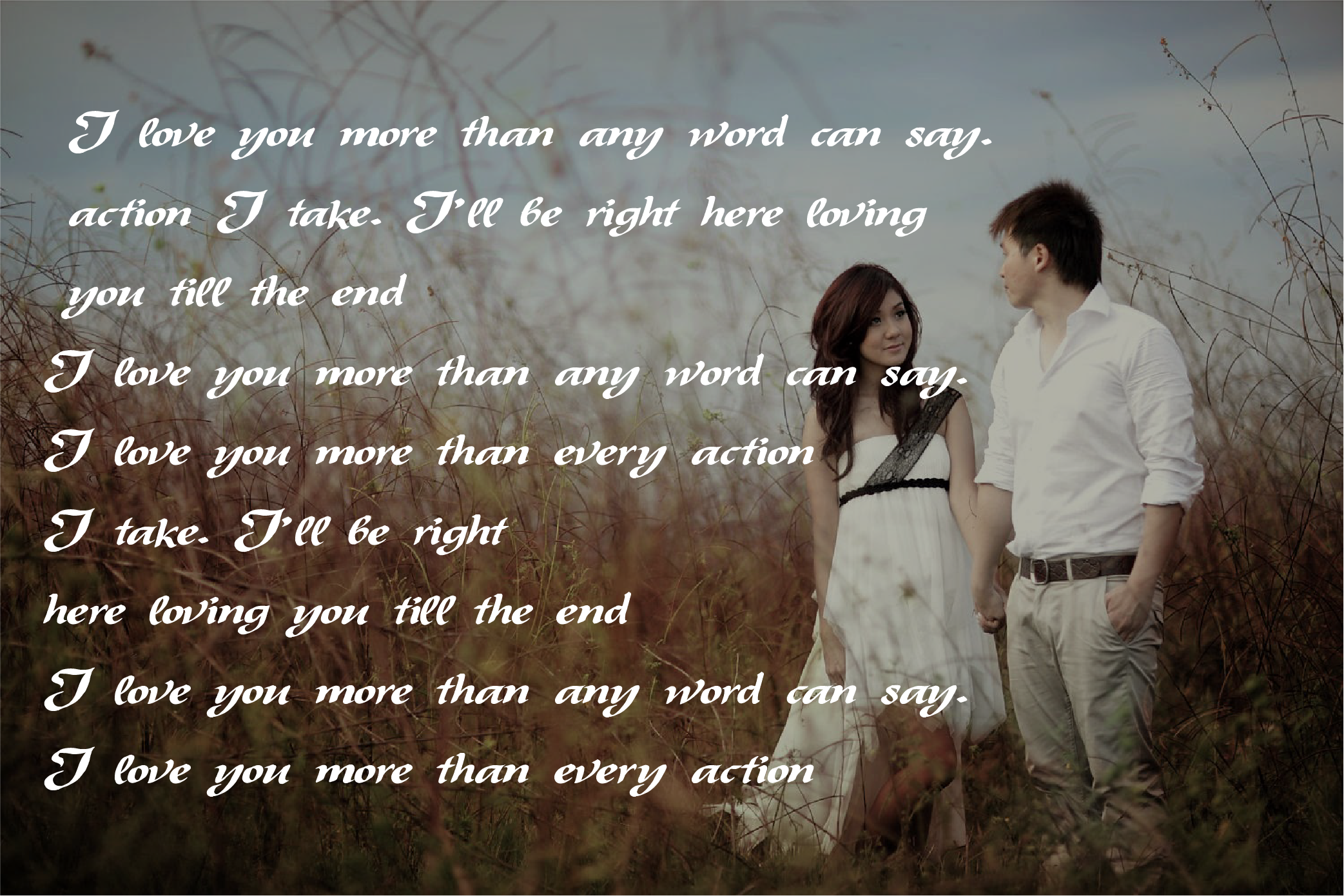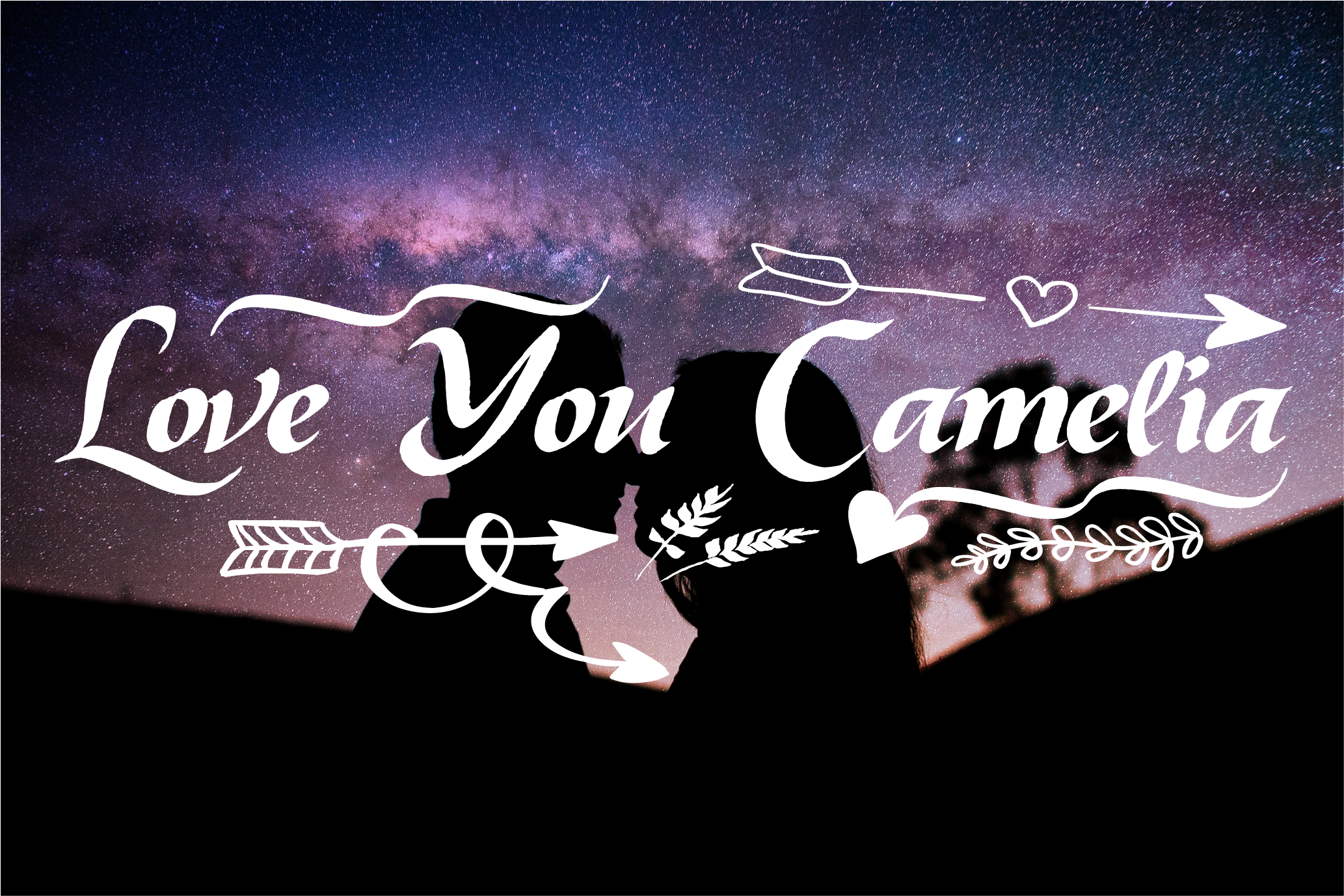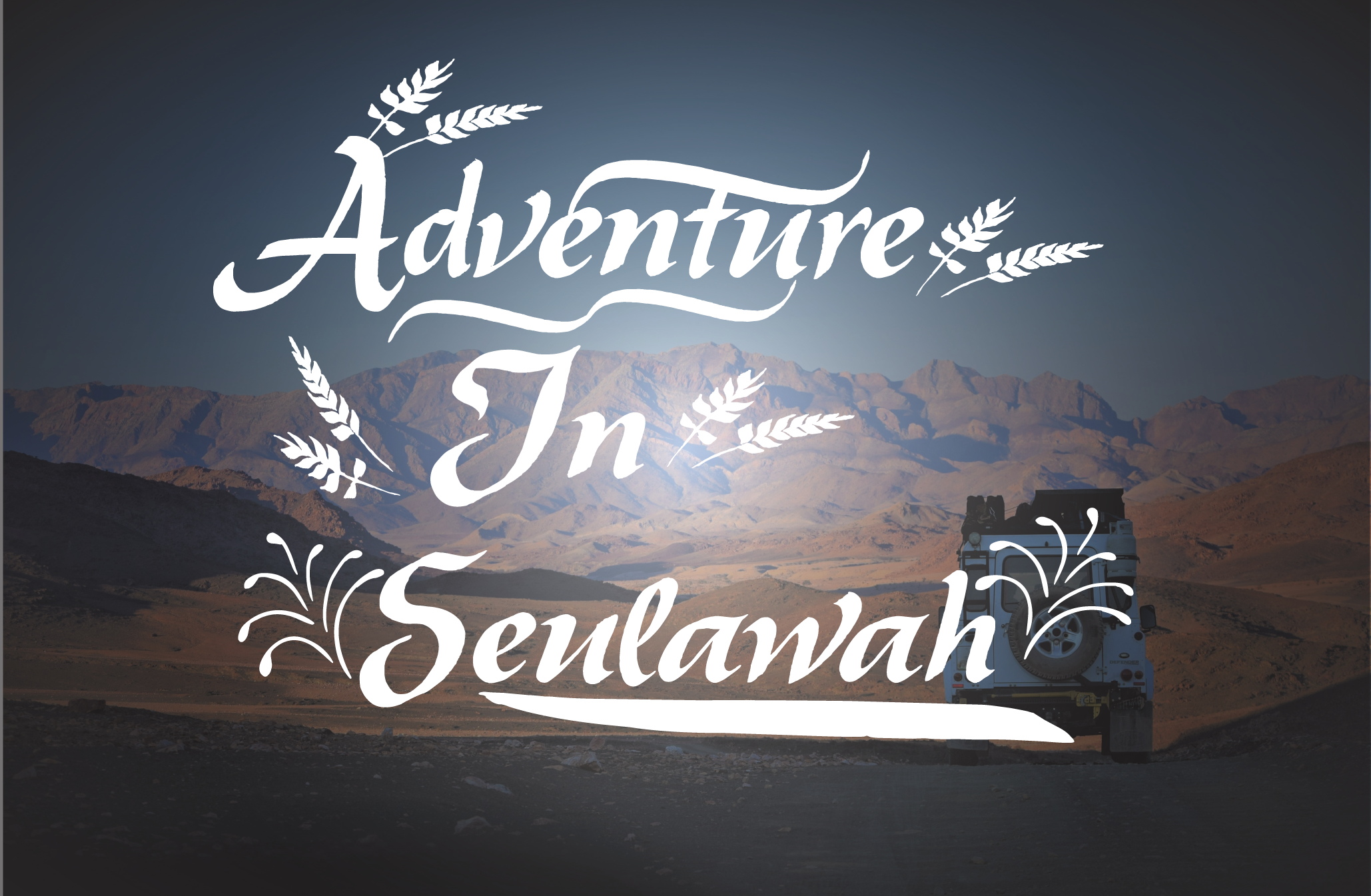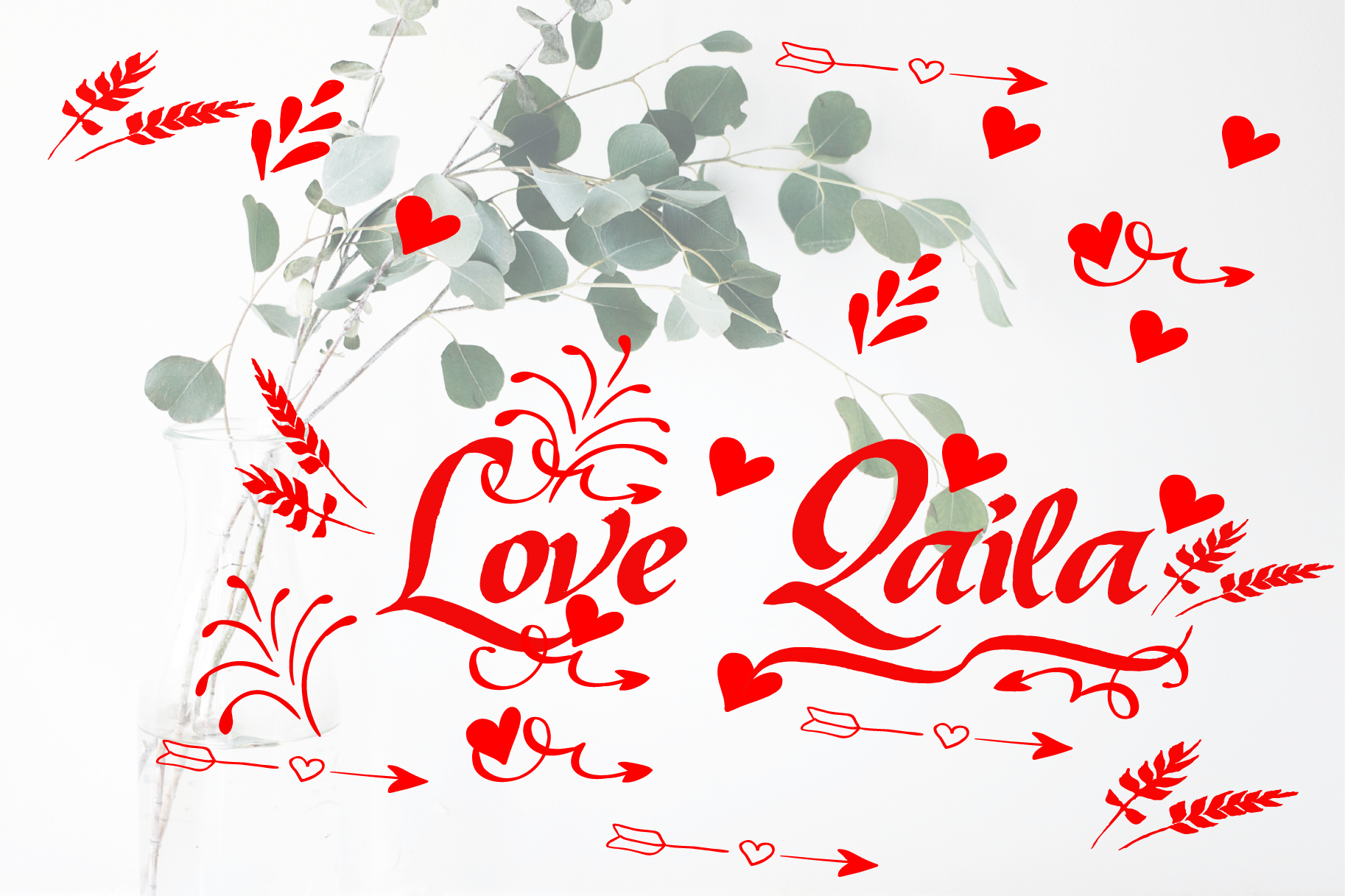
Introducing Camelia Font: A Beautiful Decorative Handwritten Font
Are you a designer or crafter looking for a unique and elegant font to add a touch of personality to your projects? Look no further than Camelia Font, a stunning decorative handwritten font that’s dynamic, easy to read, and sure to impress.
What is Camelia Font?
Camelia Font is a carefully crafted decorative handwritten font that’s perfect for a variety of design projects, from creative crafts to digital marketing materials. Its beautiful, flowing letters are designed to be highly legible, making it an excellent choice for use in titles, headings, and body text.
Key Features of Camelia Font
- Dynamic and Expressive: Camelia Font features dynamic and expressive lettering that’s perfect for adding a touch of personality to your designs.
- Easy to Read: Despite its decorative nature, Camelia Font is incredibly easy to read, making it suitable for use in a wide range of design projects.
- Handwritten Style: Camelia Font boasts a beautiful handwritten style that’s perfect for creating unique and eye-catching designs.
- Versatile: Whether you’re working on a digital project or a print design, Camelia Font is versatile enough to fit in seamlessly.
Uses for Camelia Font
So, what can you use Camelia Font for? The possibilities are endless! Here are a few ideas to get you started:
- Creative Crafts: Add a touch of elegance to your craft projects, such as handmade cards, scrapbooking, and DIY gifts.
- Digital Marketing: Use Camelia Font in your digital marketing materials, such as social media graphics, email headers, and blog posts.
- Branding and Packaging: Create eye-catching branding and packaging materials, such as logos, labels, and product packaging.
- Stationery and Invitations: Add a touch of sophistication to your stationery and invitations, such as wedding invites, birthday cards, and thank-you notes.
Tips for Using Camelia Font
To get the most out of Camelia Font, here are a few tips to keep in mind:
- Mix and Match: Experiment with different font sizes, colors, and styles to create visual interest and hierarchy.
- Pair with Other Fonts: Combine Camelia Font with other fonts to create a unique and eye-catching design.
- Use in Headings and Titles: Use Camelia Font in headings and titles to add a touch of elegance and sophistication.
In conclusion, Camelia Font is a stunning decorative handwritten font that’s perfect for designers and crafters looking to add a touch of personality to their projects. With its dynamic and expressive lettering, easy readability, and versatility, Camelia Font is sure to become a go-to font in your design arsenal. So why wait? Download Camelia Font today and start creating beautiful, eye-catching designs that will leave a lasting impression!